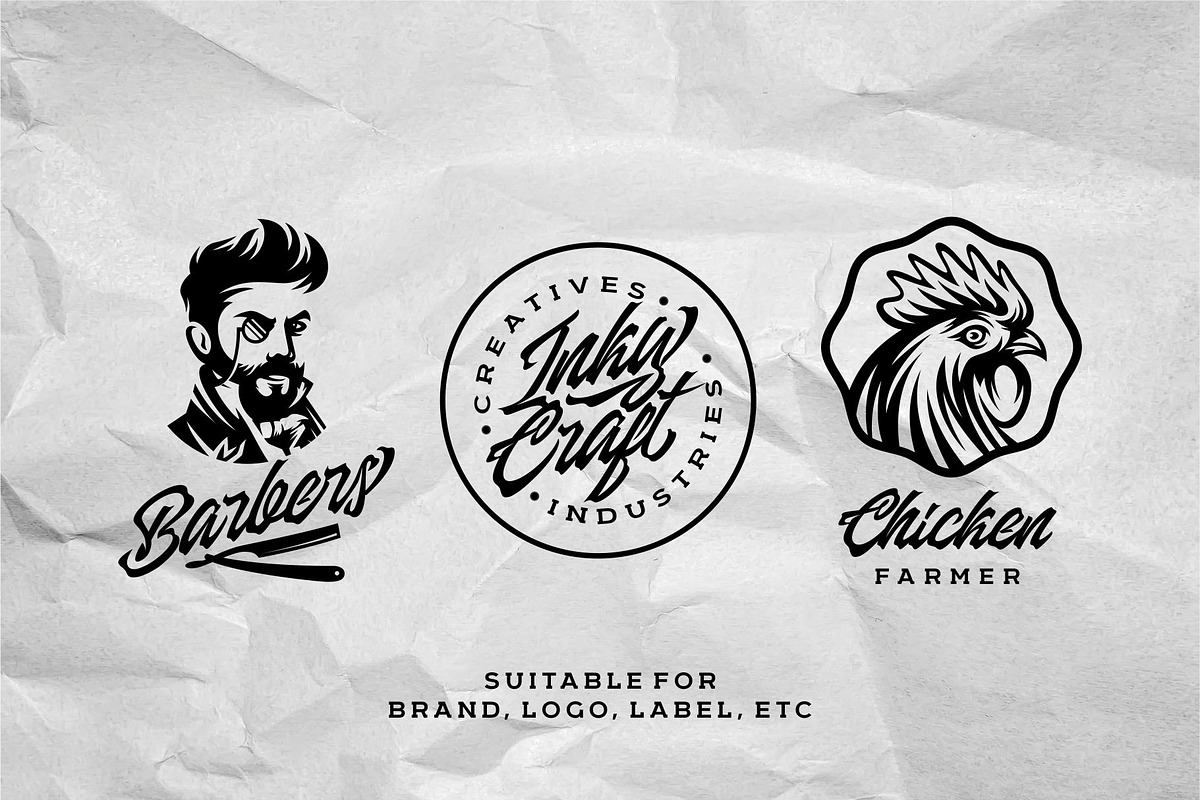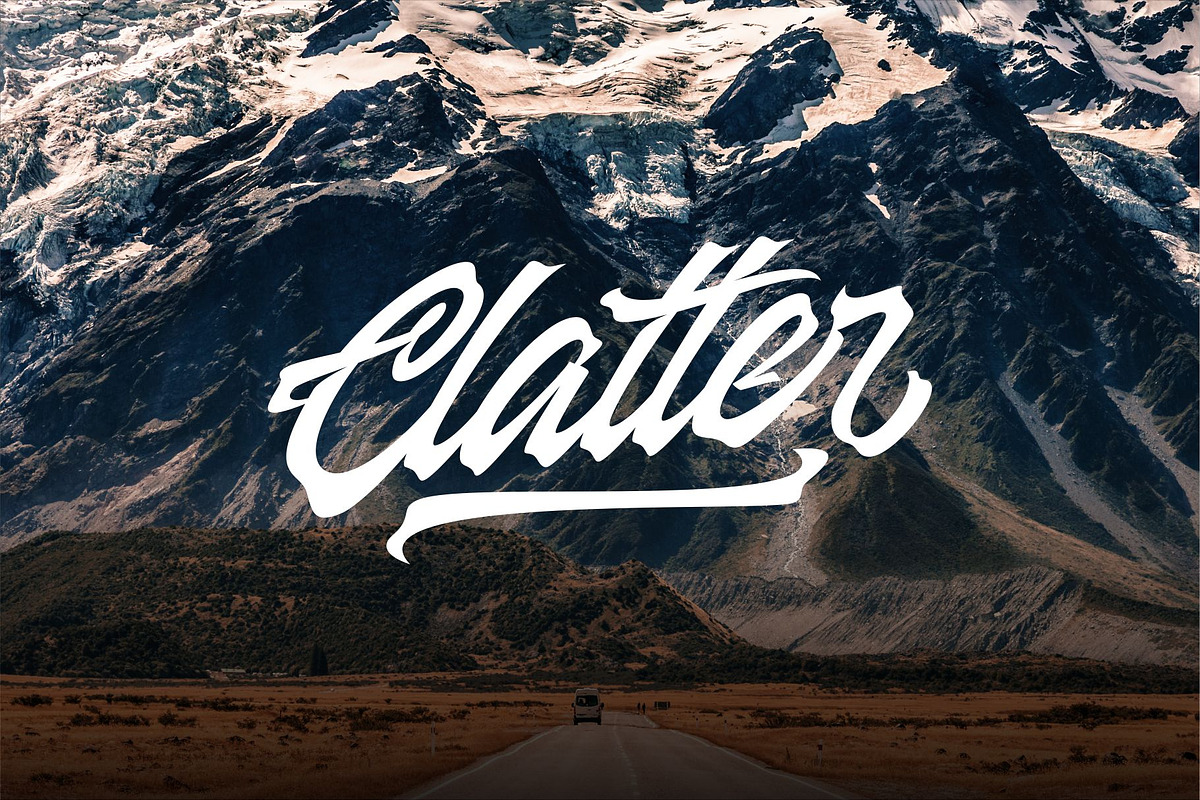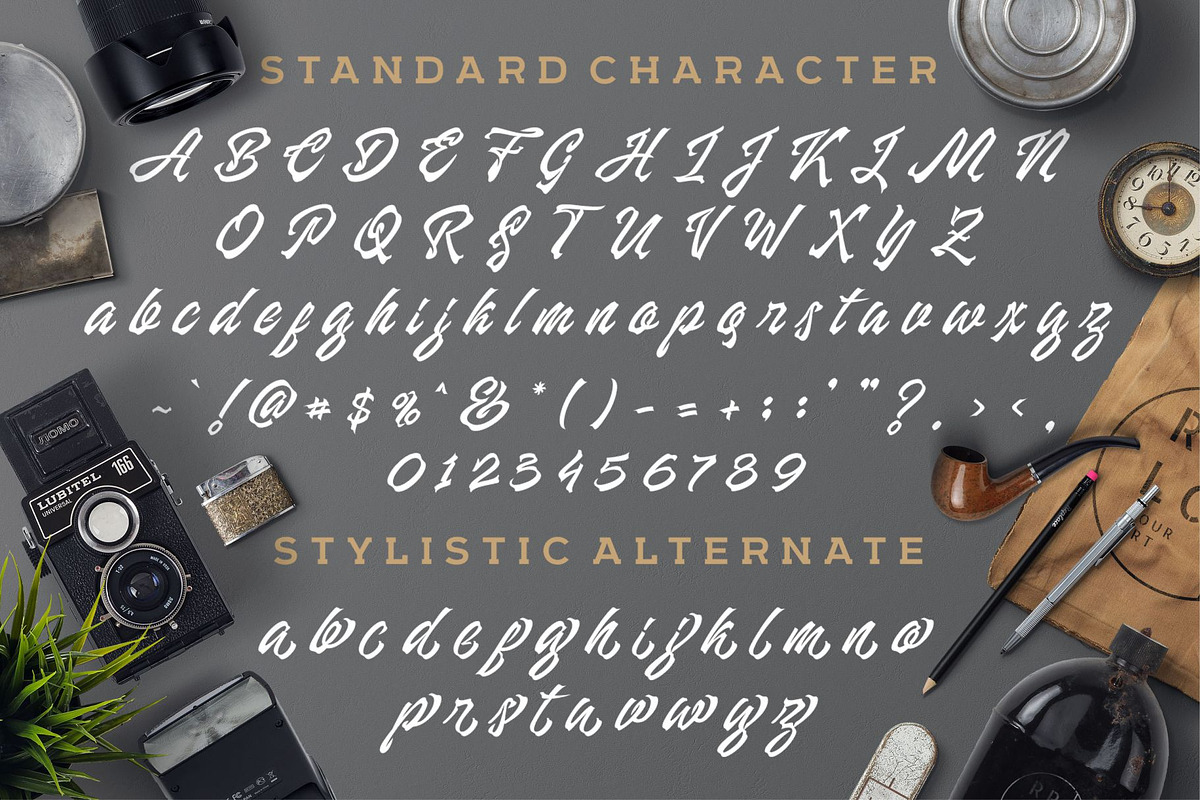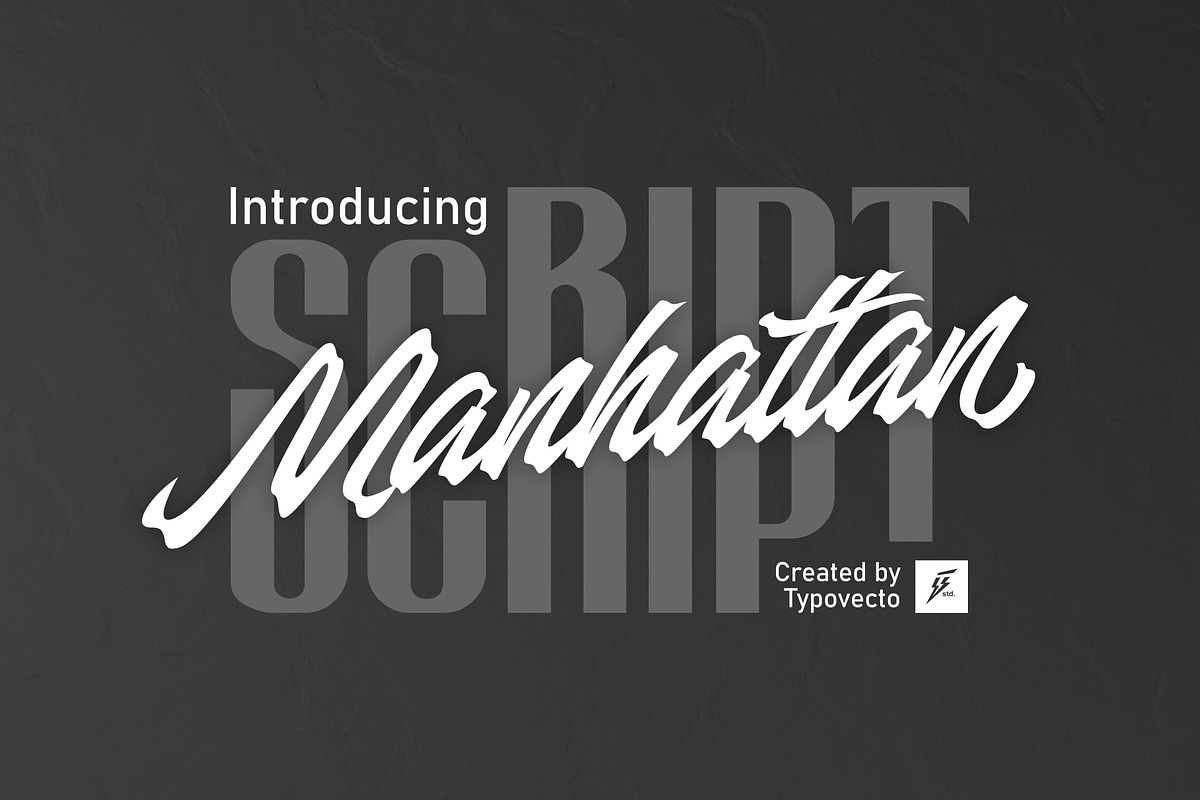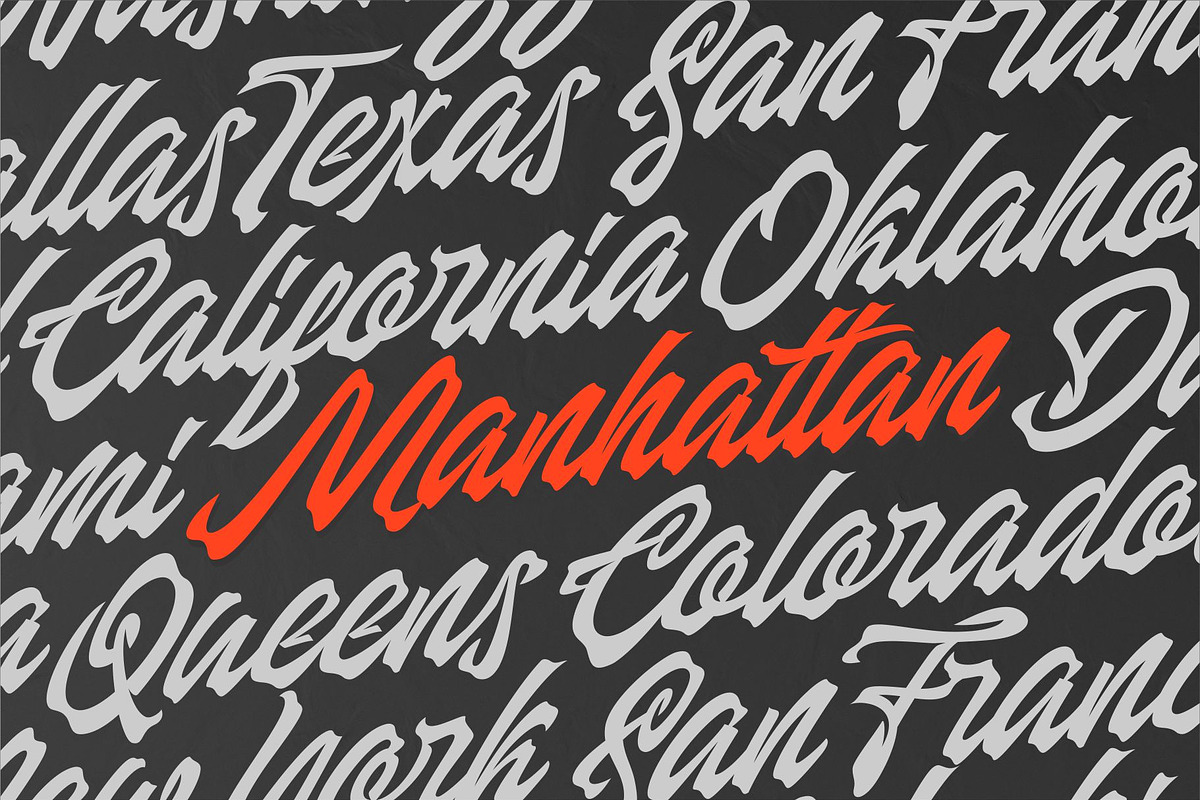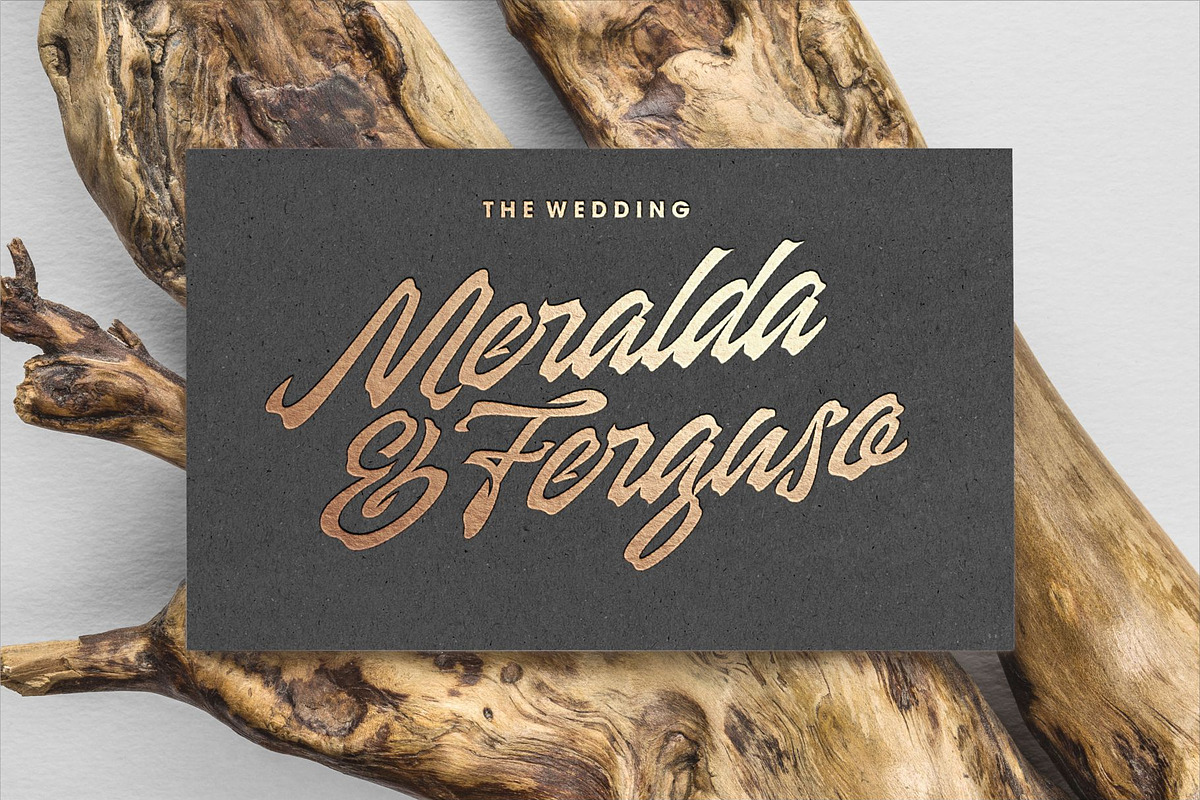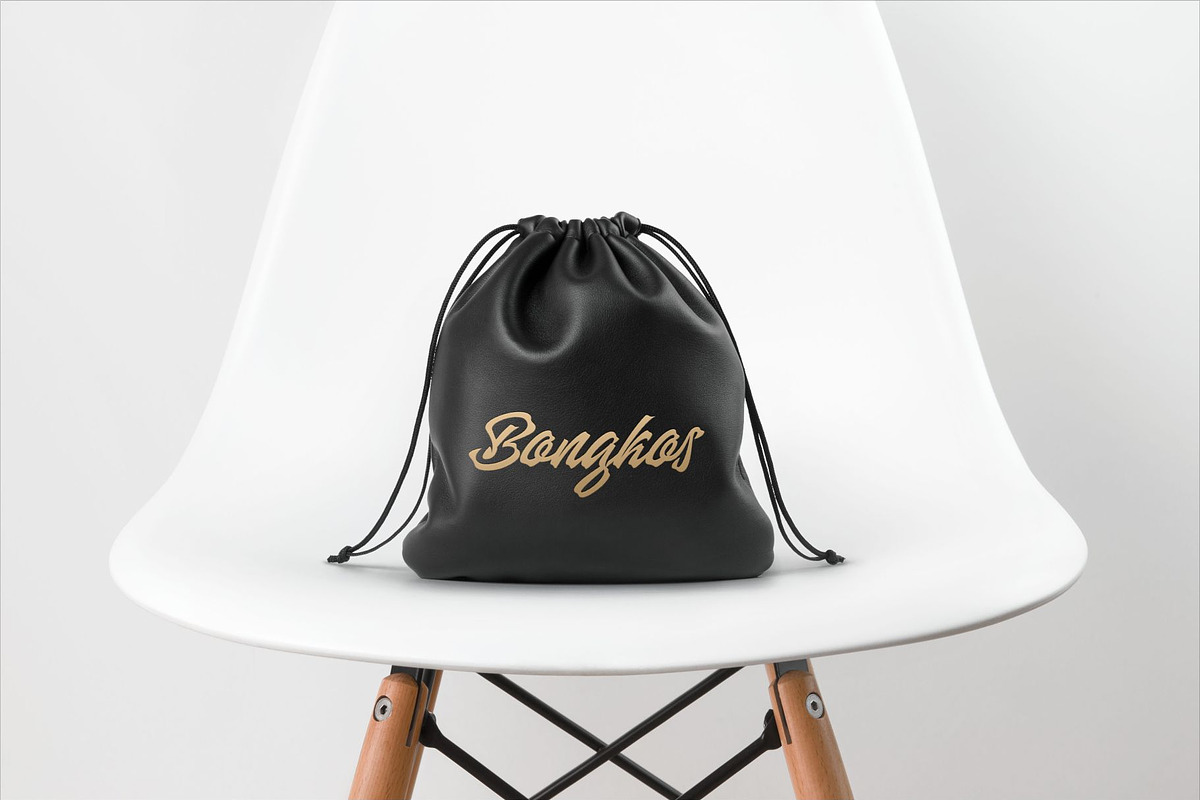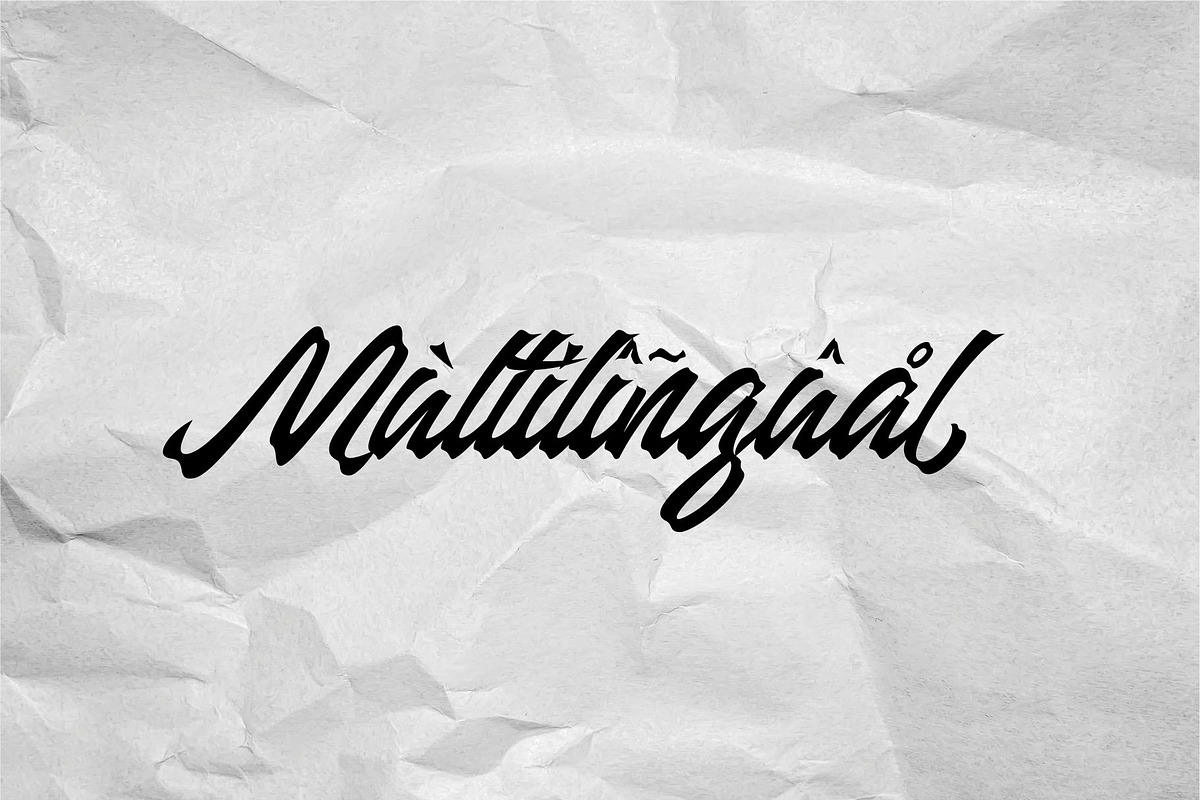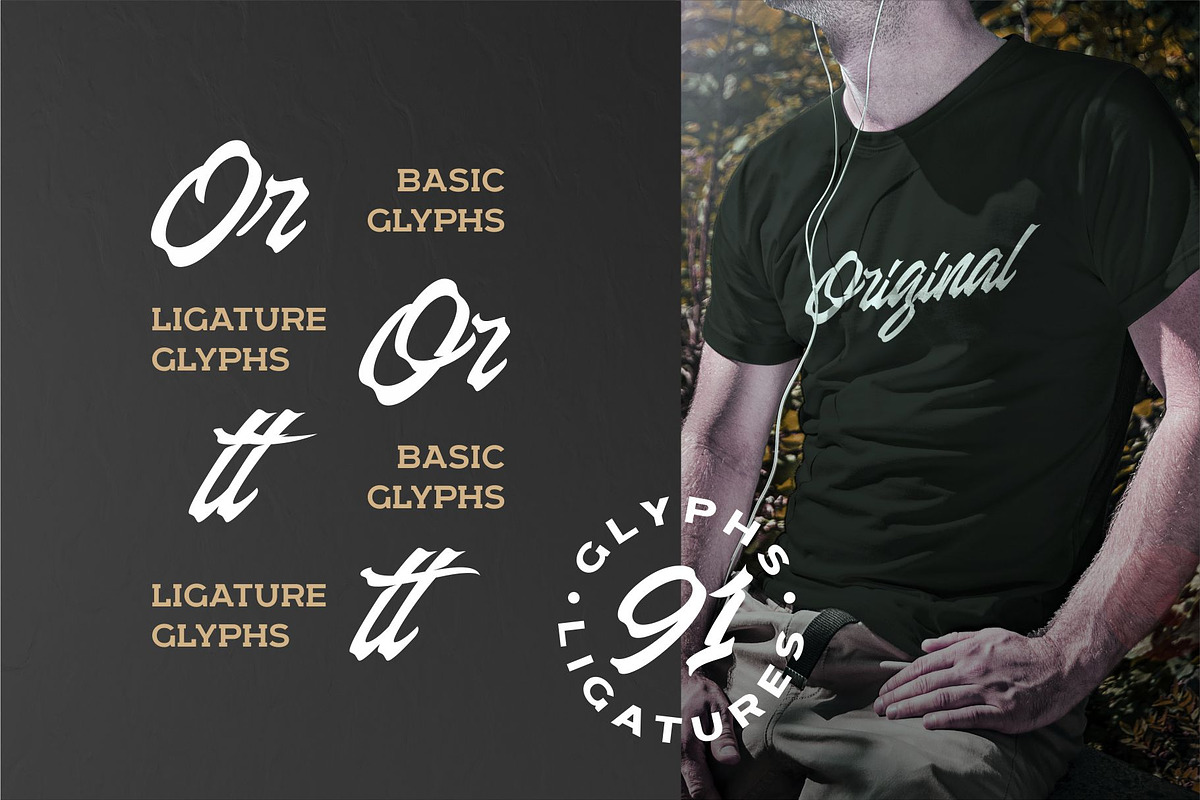
Manhattan Font
Manhattan Script is the first commercial typeface from Typovecto Std. With classic, elegant, vintage, luxury, and clean feel.
- Manhattan Script comes with 2 filetype (.ttf + .otf), fonts comes with upper and lowercase Standard Characters, Punctuation, Numerals. And other Glyphs variation of the OpenType features such as Standard Ligature, Stylistic Alternate, and Stylistic Set.
- Includes a range of multilingual characters.
Manhattan Script Typeface is suitable typeface for various purposes like logotype, signage, label, poster, dropcap, titles, letterhead, book cover and etc.